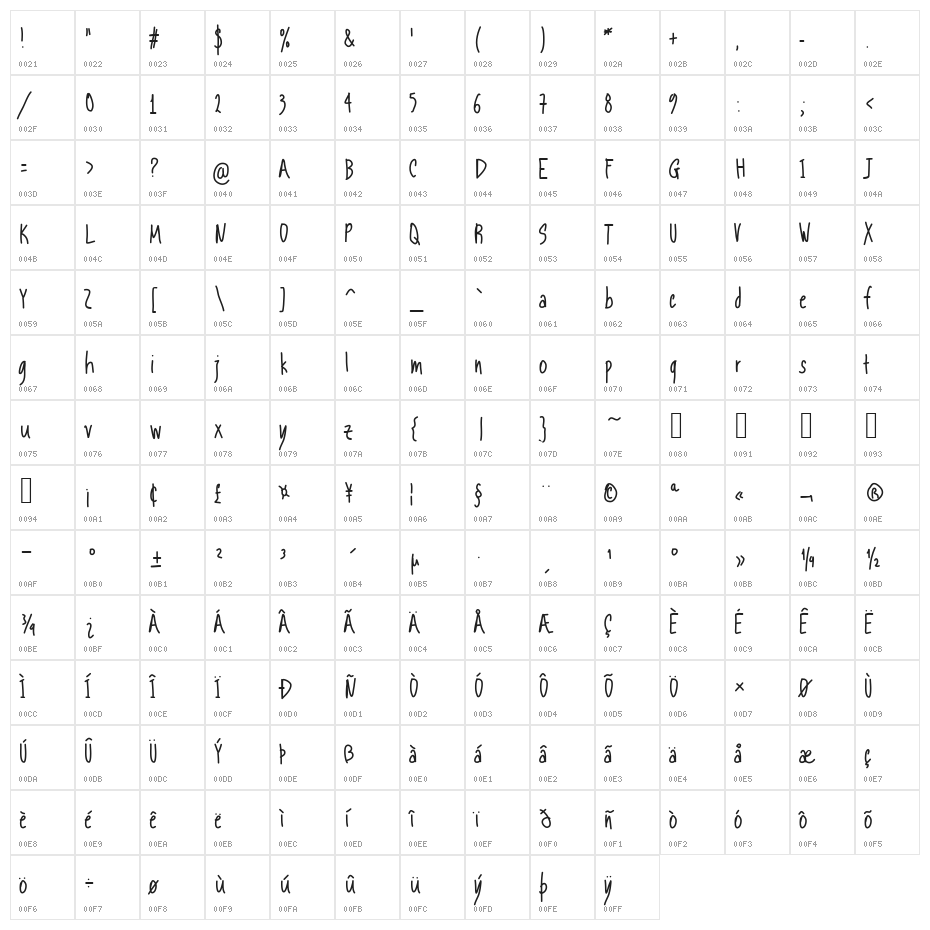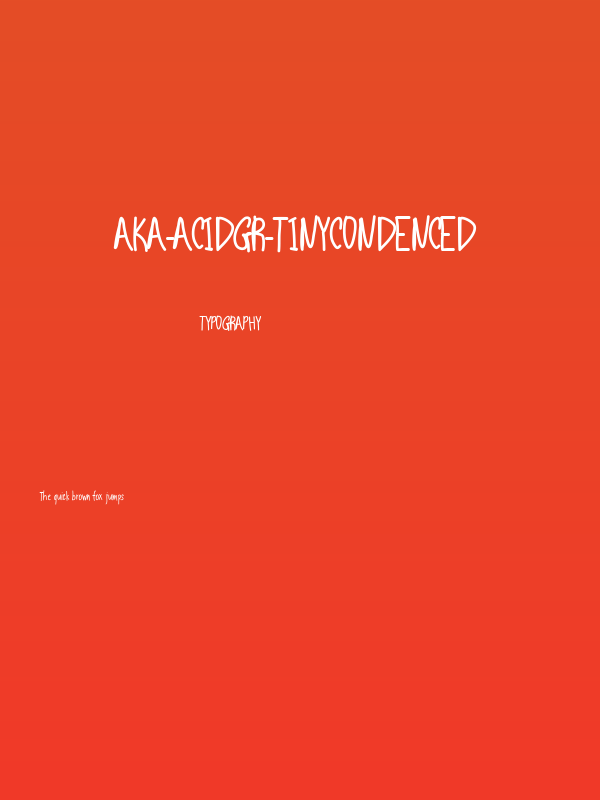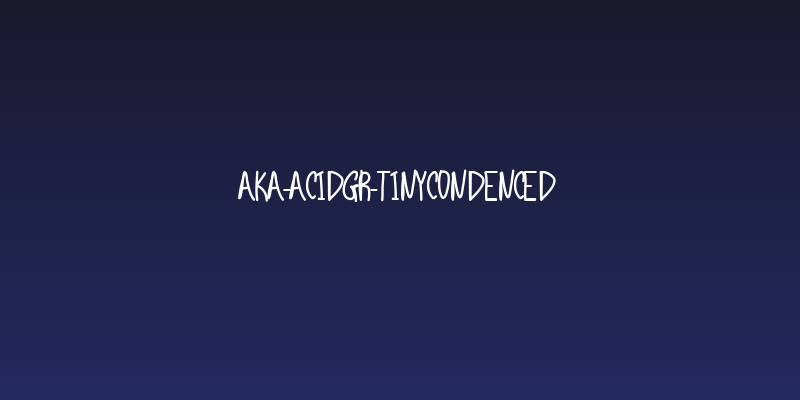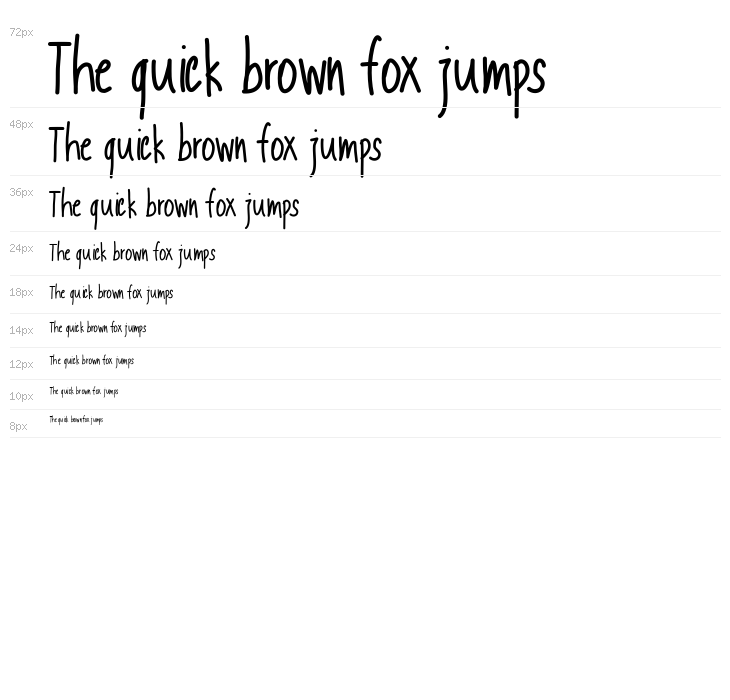
Aka-AcidGR-TinyCondenced Font
Aka-AcidGR-TinyCondenced Description
This font features a playful and casual handwritten style, characterized by its irregular and slightly wavy strokes. The letters are tall and narrow, giving it a condensed appearance, while maintaining a whimsical and friendly vibe. The uppercase and lowercase letters flow seamlessly, with a consistent stroke width that adds to its informal charm. The numerals and special characters are crafted to match the overall style, ensuring a cohesive look across all text elements. This font's unique personality makes it stand out, offering a fresh and approachable aesthetic.
| Use Case | Logos, Headlines, Informal Text |
| Proposed Projects | Ideal for greeting cards, children's books, playful branding, and informal invitations. |